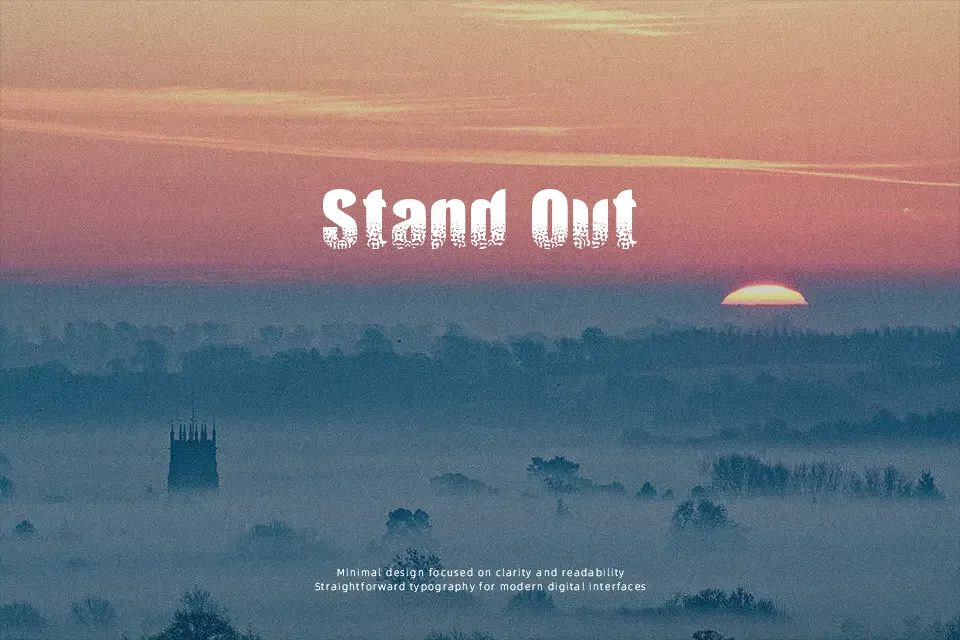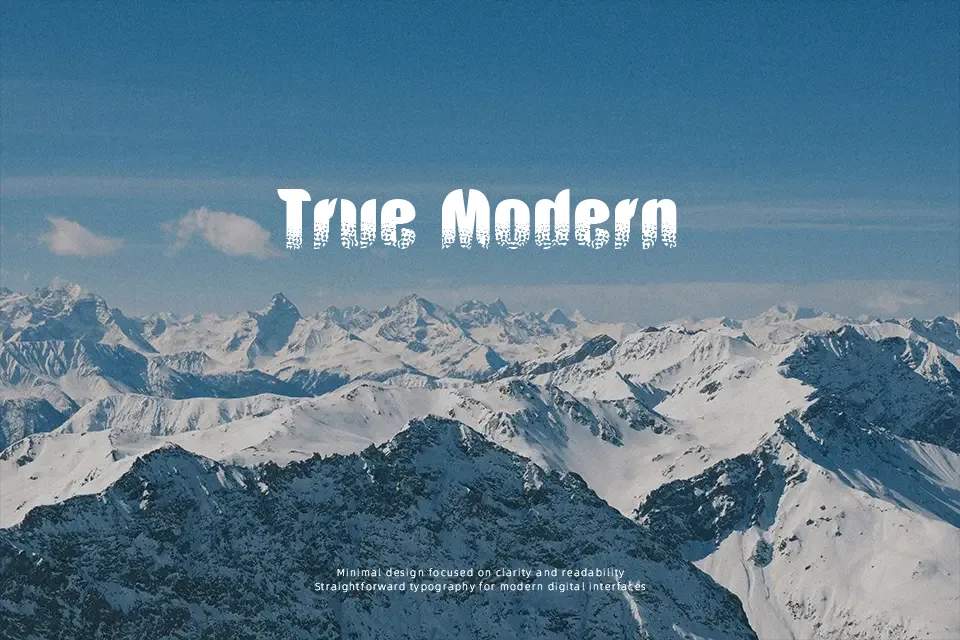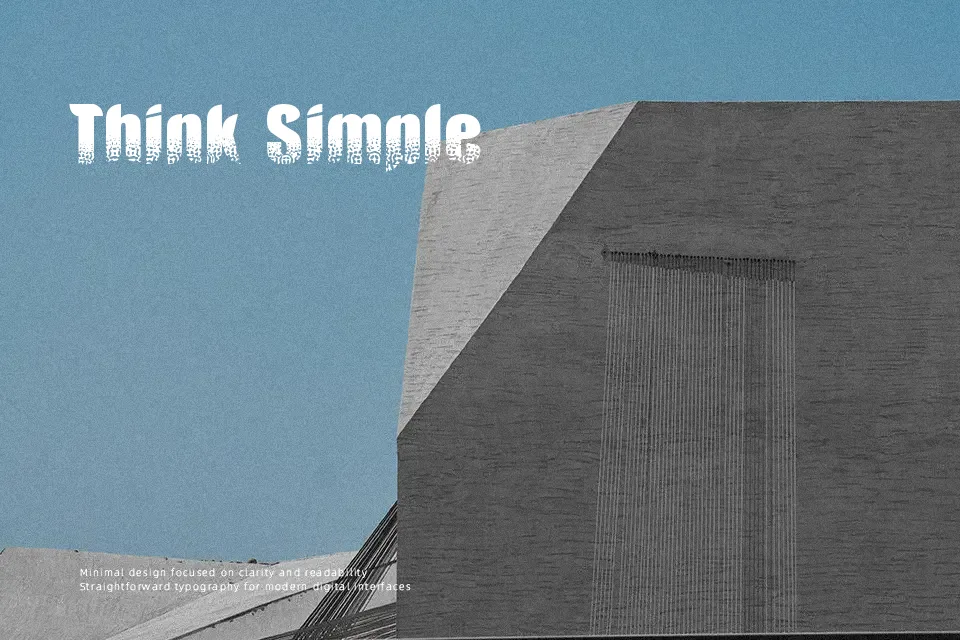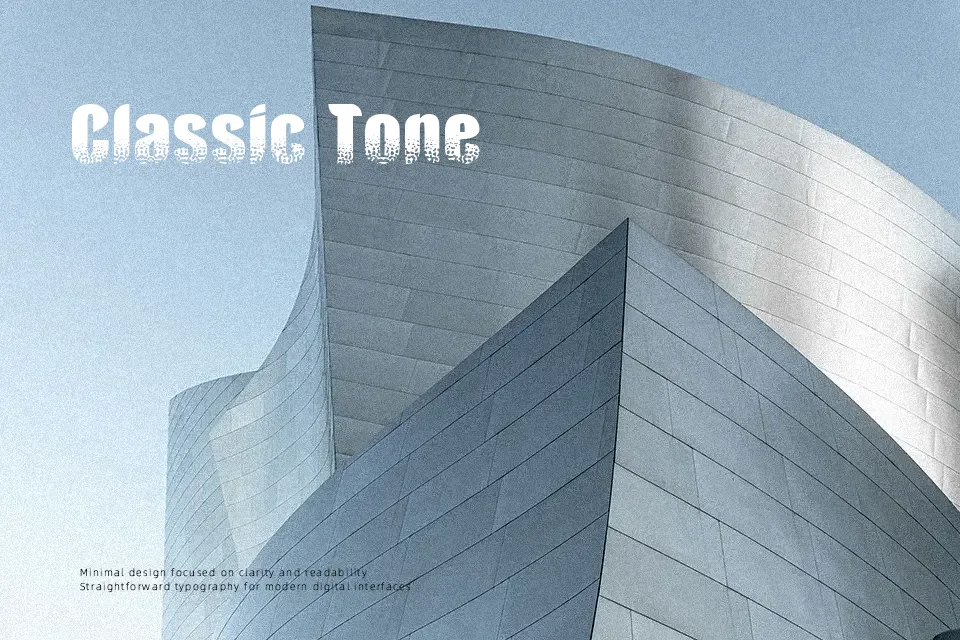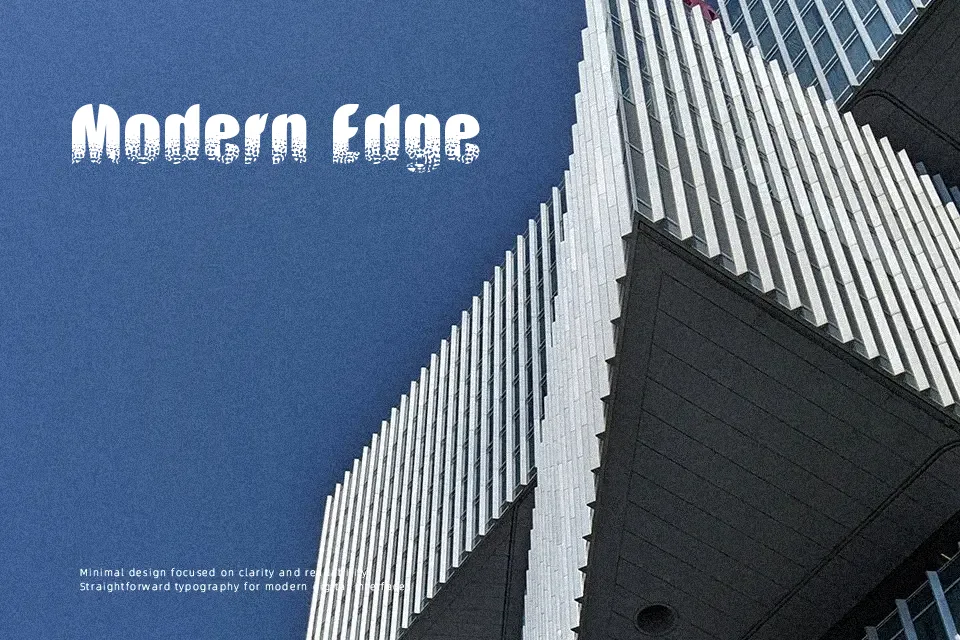
Tambora Font
Tambora Font is a rugged display typeface built with heavy strokes, weathered silhouettes, and compressed proportions that immediately establish an intense visual rhythm. The eroded edges and fractured outlines create an abrasive, distressed look across uppercase letters and numerals while maintaining balanced spacing for short display lines. This solid presence makes the design exceptionally effective for band merchandise, skateboarding apparel, and bold poster headers where raw impact is paramount. However, the heavy texture and dense letterforms significantly hinder reading comfort across small captions and continuous body text, meaning the typeface performs best when reserved strictly for large-scale headline applications.
skatewear apparel graphics,punk rock concert posters,grimy street signage,grunge merchandise headers
extended body paragraphs,small legal disclaimers,mobile interface menus,dense editorial text
Perfect for branding, fashion, and headline, with a bold and decorative style.